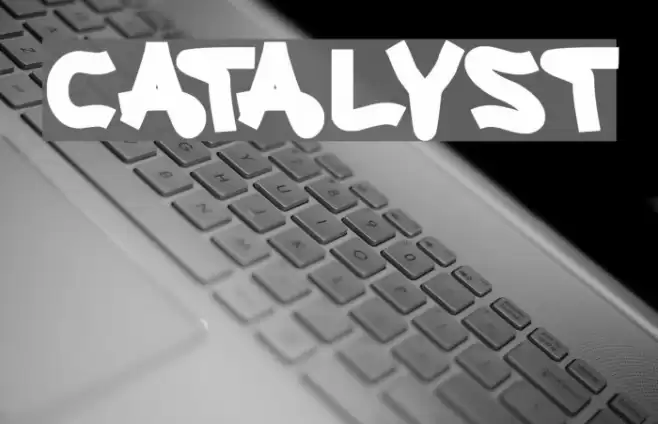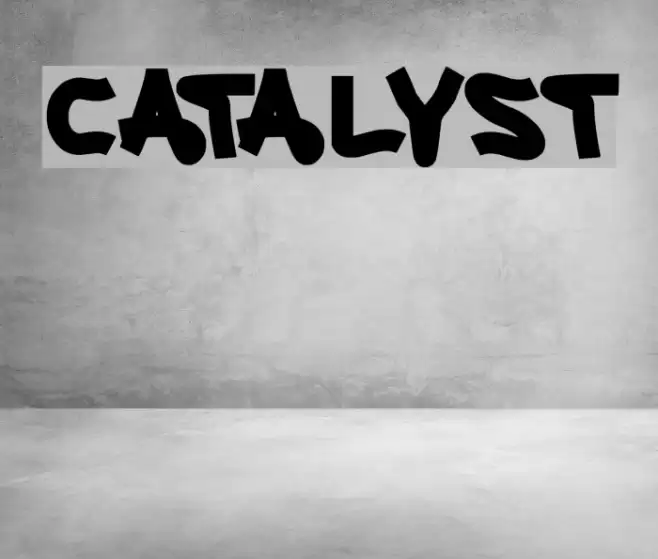
CATALYST Font
CATALYST Description
This font features bold, dynamic characters with a playful and energetic style. The letters are heavily stylized with thick strokes and unique, angular shapes that give them a sense of movement and flair. The overall appearance is eye-catching and modern, making it suitable for projects that require a strong visual impact. The uppercase letters are particularly striking, with each character exhibiting a distinct personality while maintaining a cohesive look across the alphabet.
A bold, dynamic font with playful and energetic characters from Uncategorized fonts.
- Proposed Projects: Ideal for posters, branding, and advertising materials that need a strong visual presence.